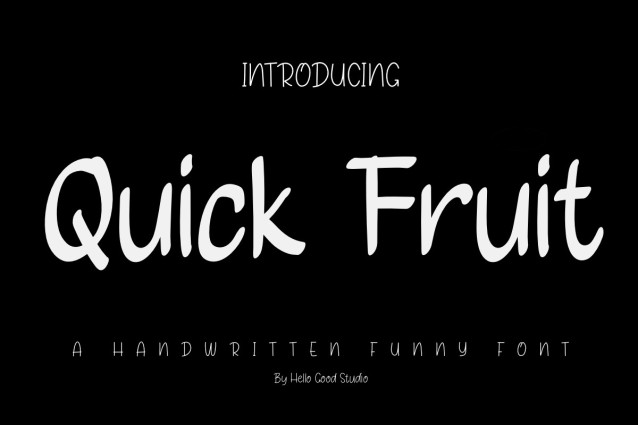
Quick Fruit Font
Quick Fruit Font a sweet and friendly handwritten font. Cute and fun, this font is ideal for writing wedding invitations, cards, or any other design that might need a fun touch!